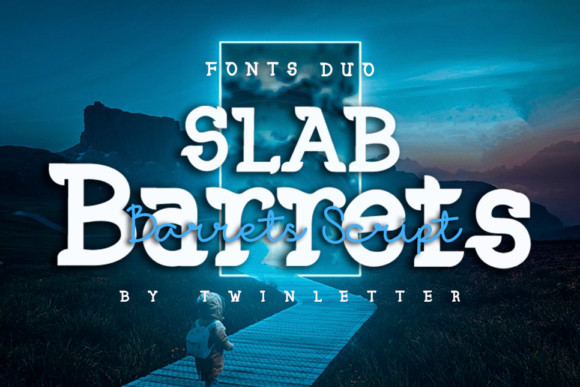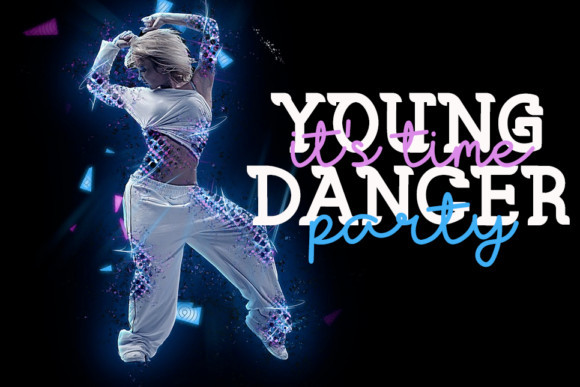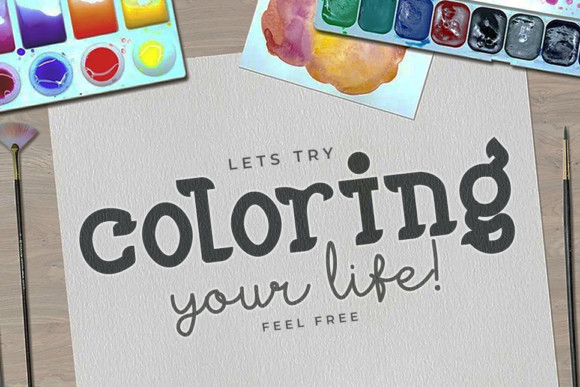
Slab Barrets Font
Slab Barrets is a great duo font. It features amazing script characters with a slab serif style. Combining these two fonts on your next design will give a unique and modern feel.
It will elevate a wide range of design projects to the highest level, be it branding, headings, wedding designs, invitations, signatures, logos, labels, and much more!